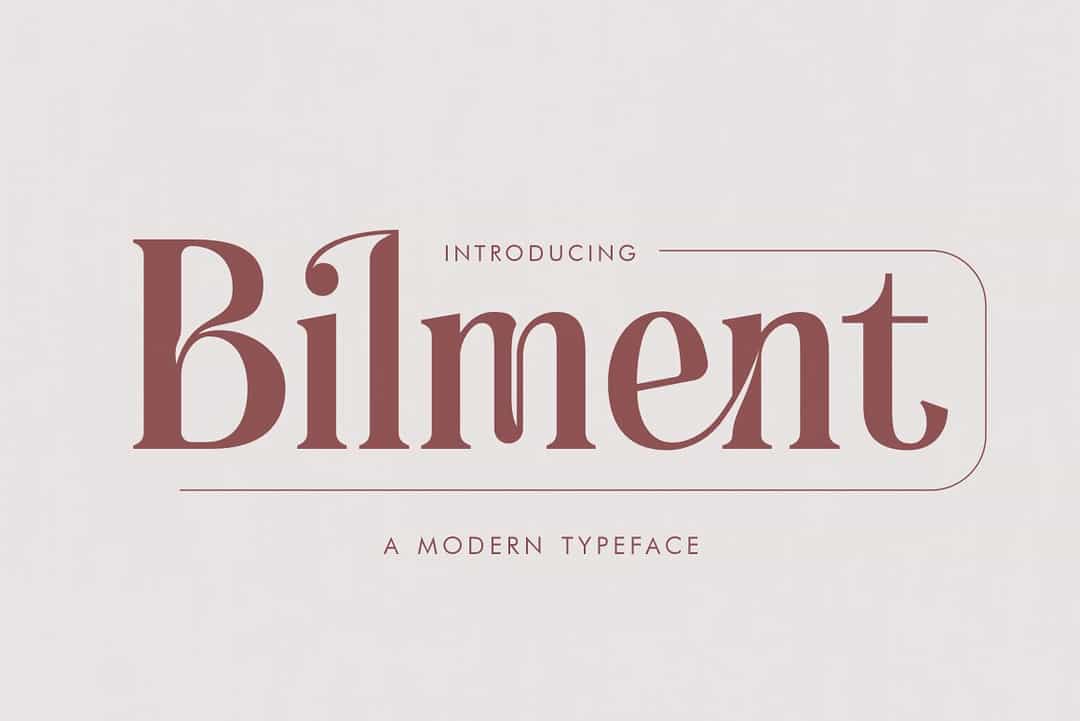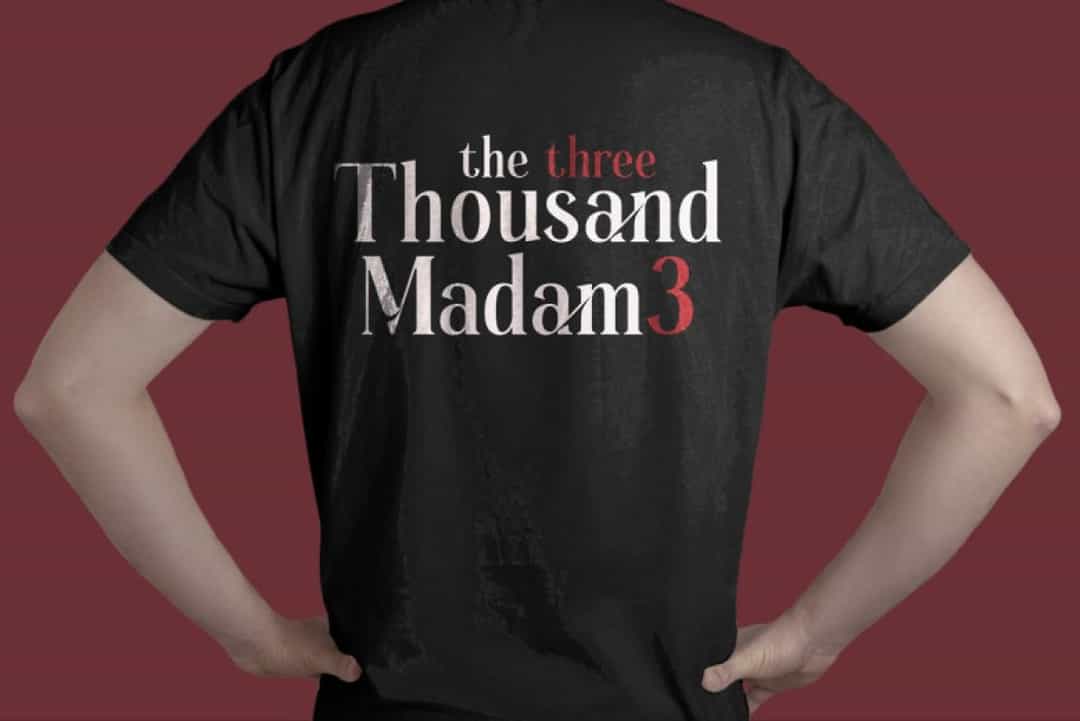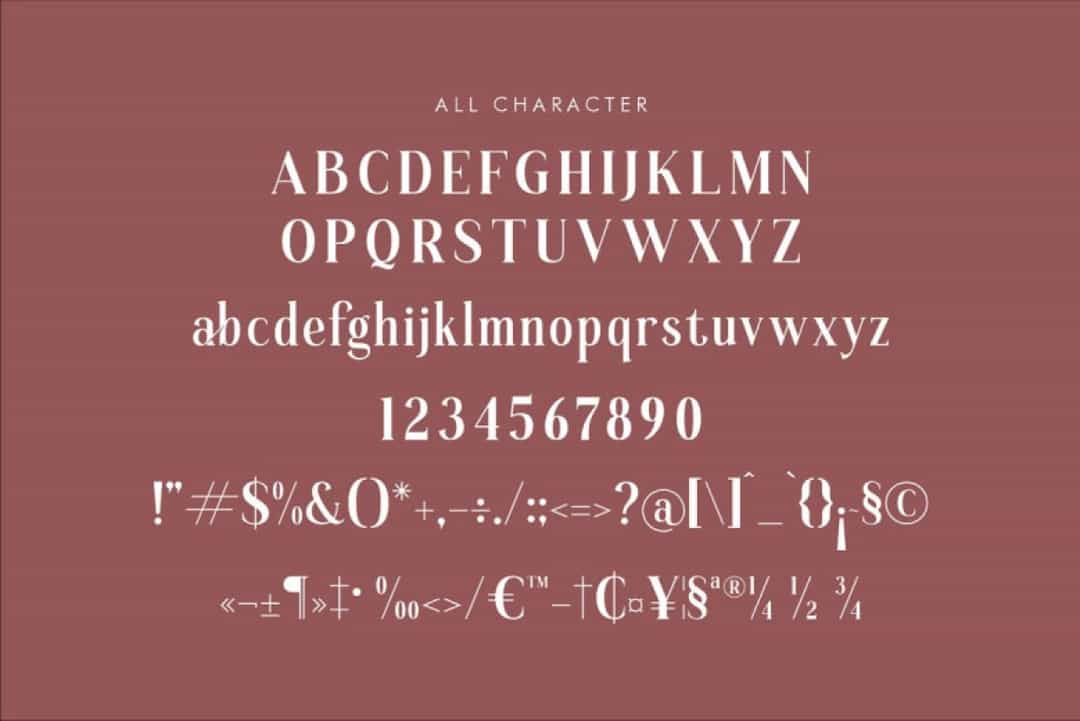
Bilment is a modern serif font with its own distinctive design and modern appearance. Perfect for creating stylish logos, book or film name designs, fashion brand clothing designs, magazine letters and quotes; and more.